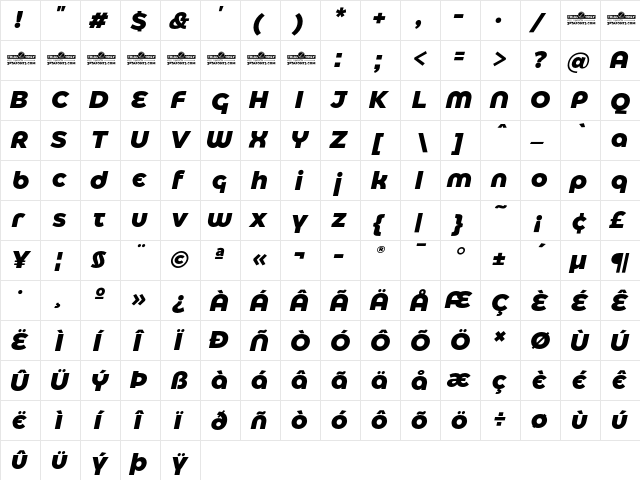
Eastman Alternate Trial Extrabold Italic
Extrabold Italic · Zetafonts Francesco Canovaro ·
Foundry Zetafonts
FoundryZetafonts
DesignerFrancesco Canovaro
Design Context for Eastman Alternate Trial Typeface
Eastman Alternate Trial offers clean, dependable letterforms without strong stylistic allegiance, making it a practical choice for designers who need flexibility. The slanted form adds forward momentum and visual energy. Its bold stroke weight gives it real presence on the page.